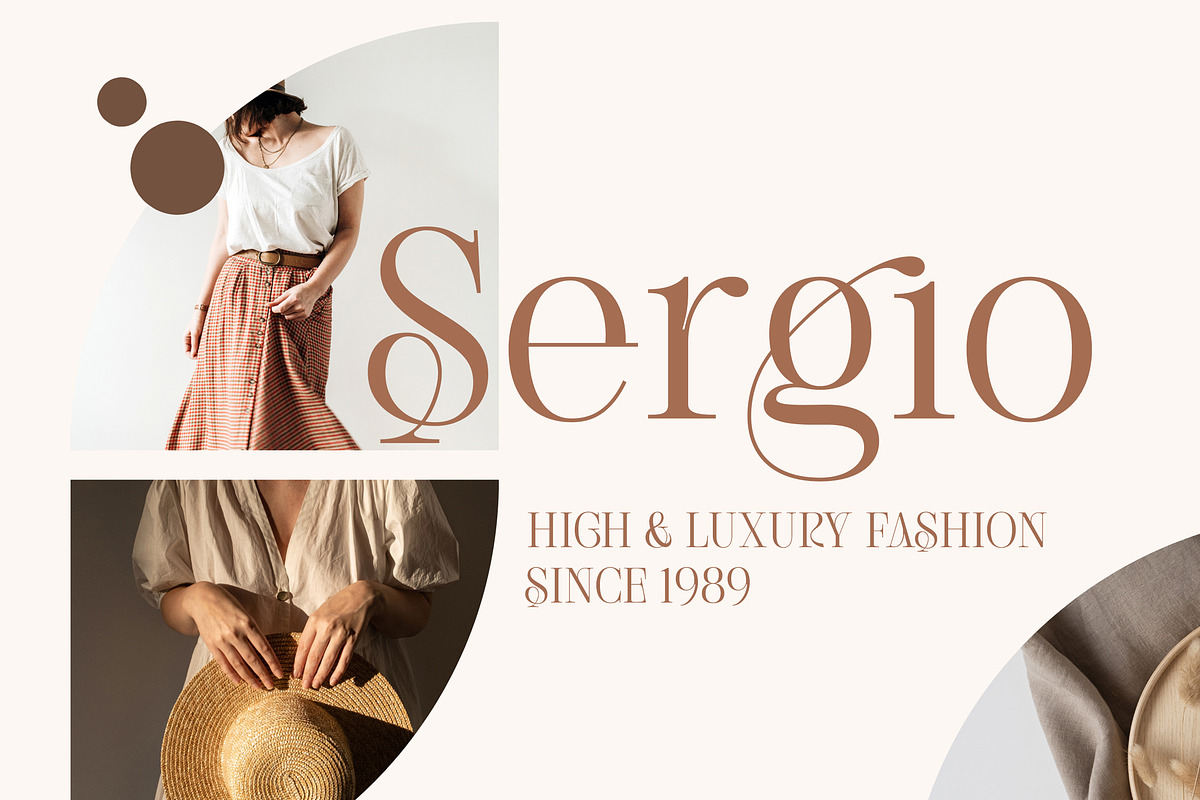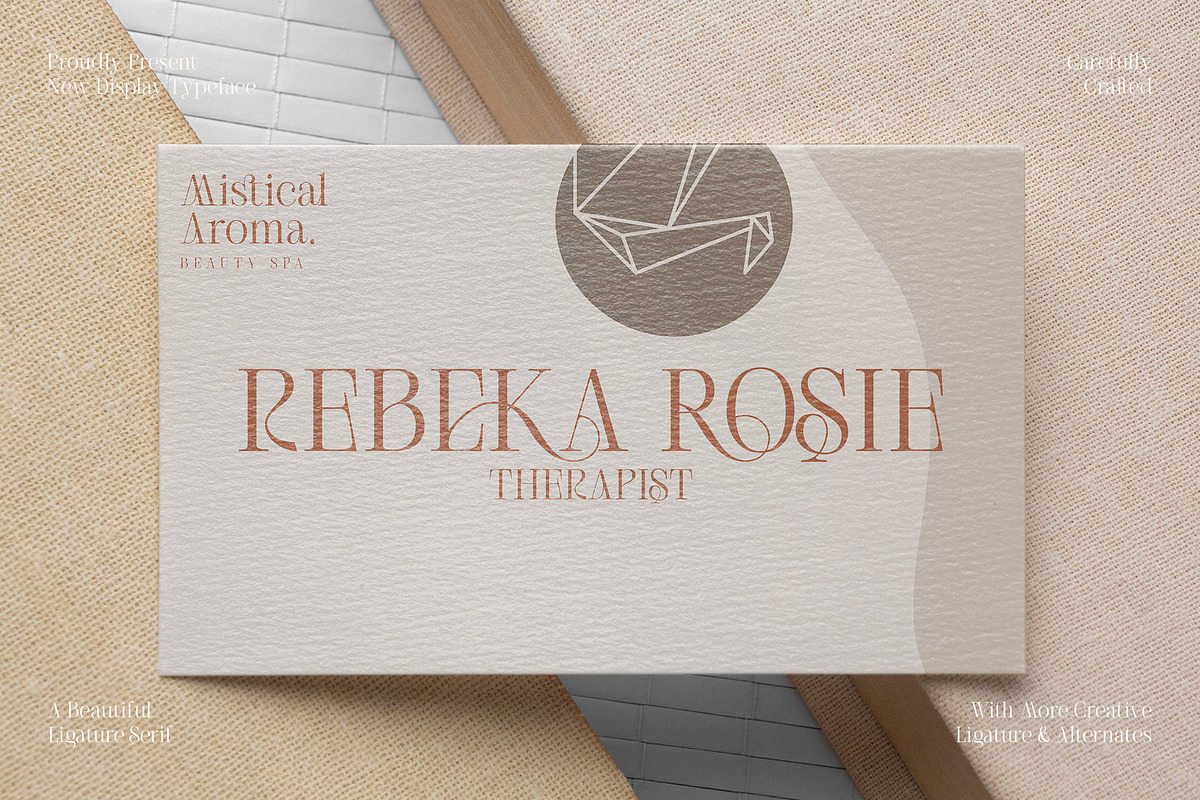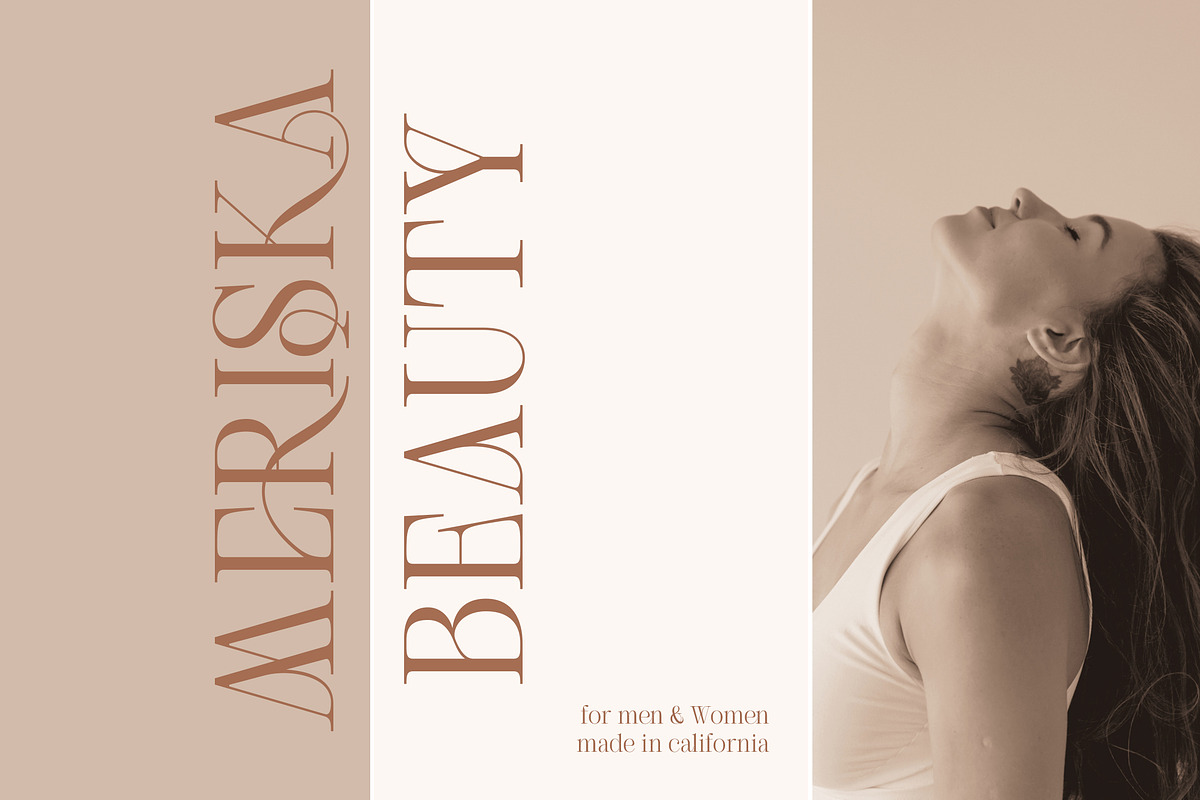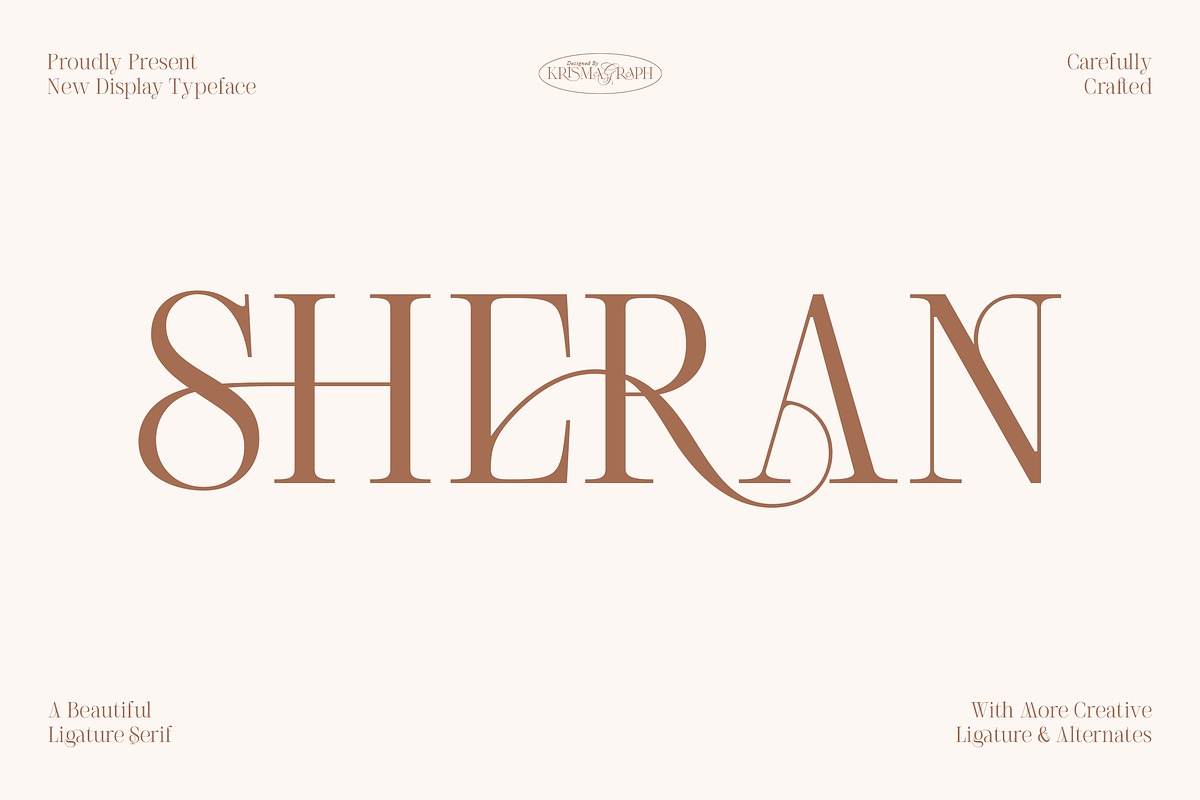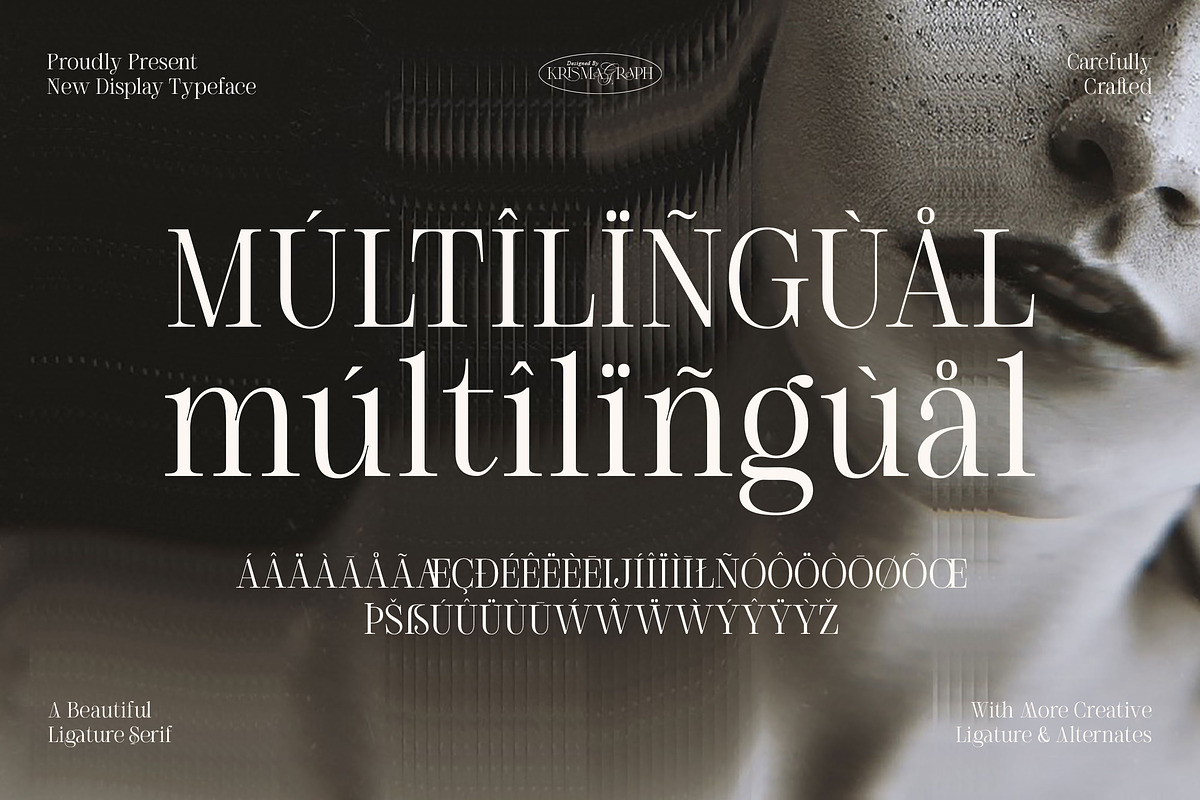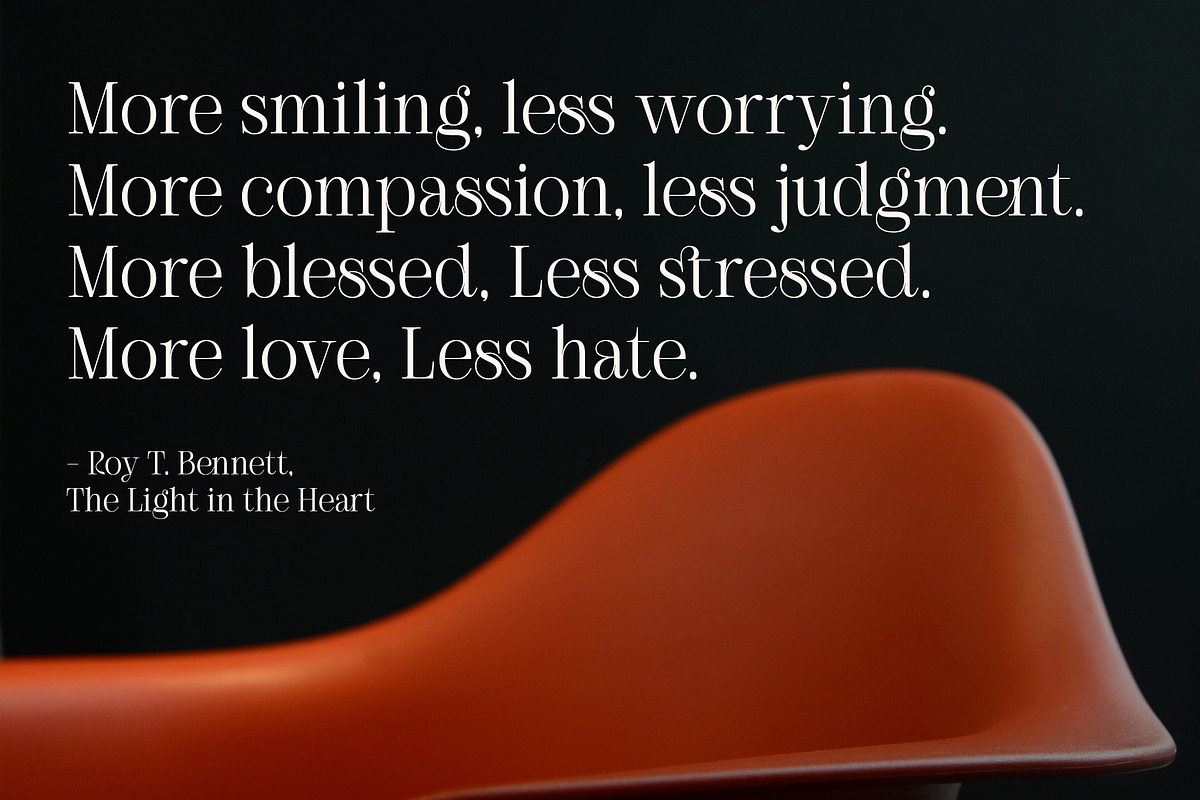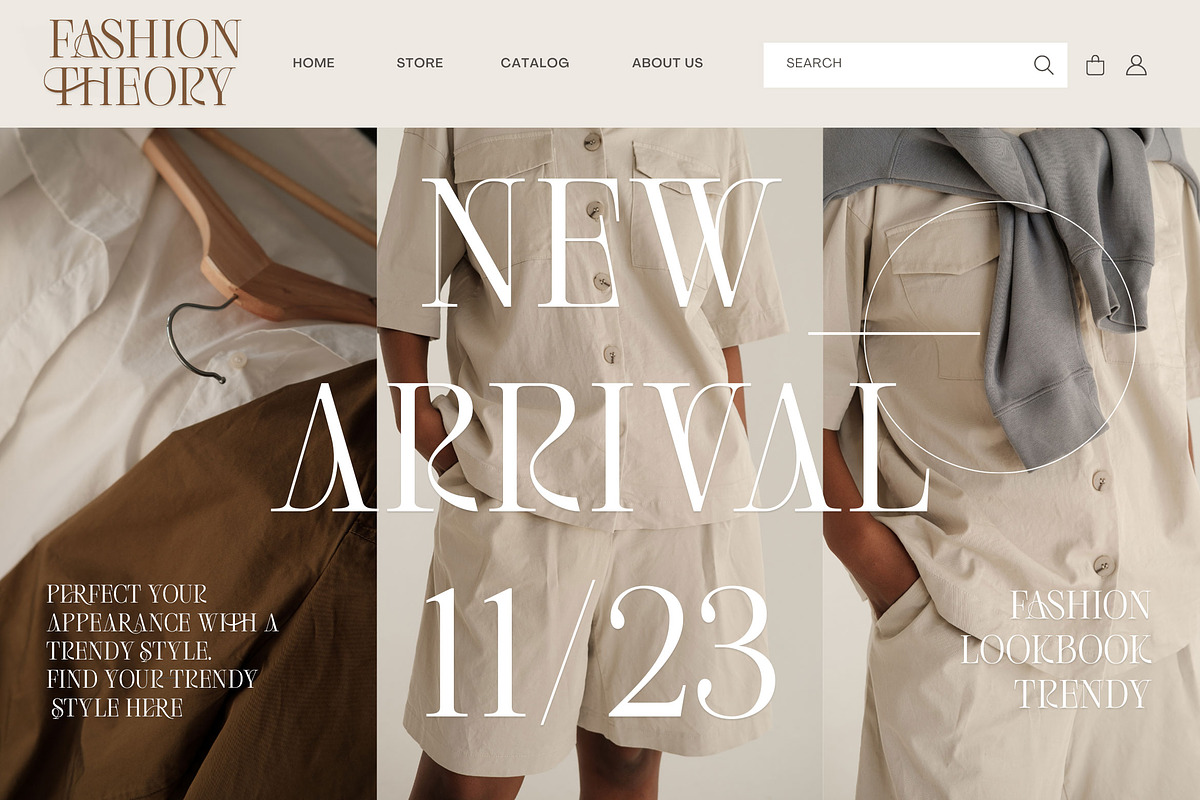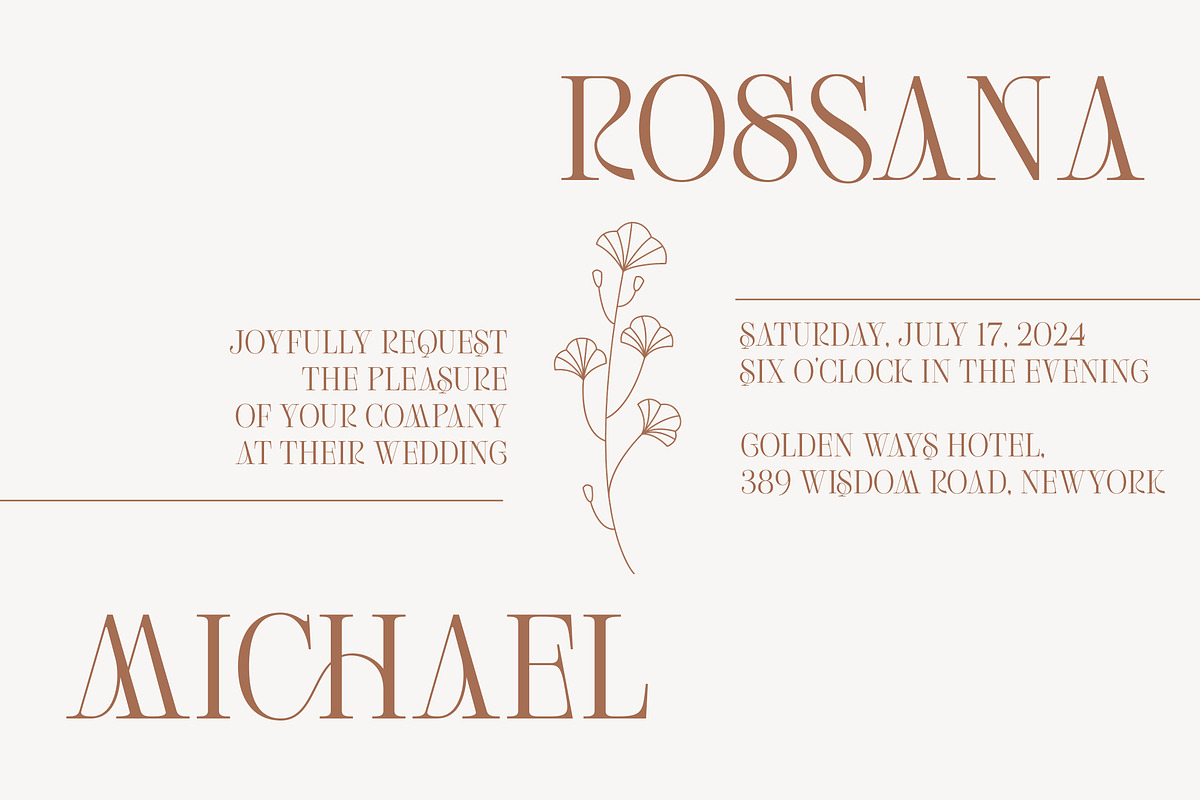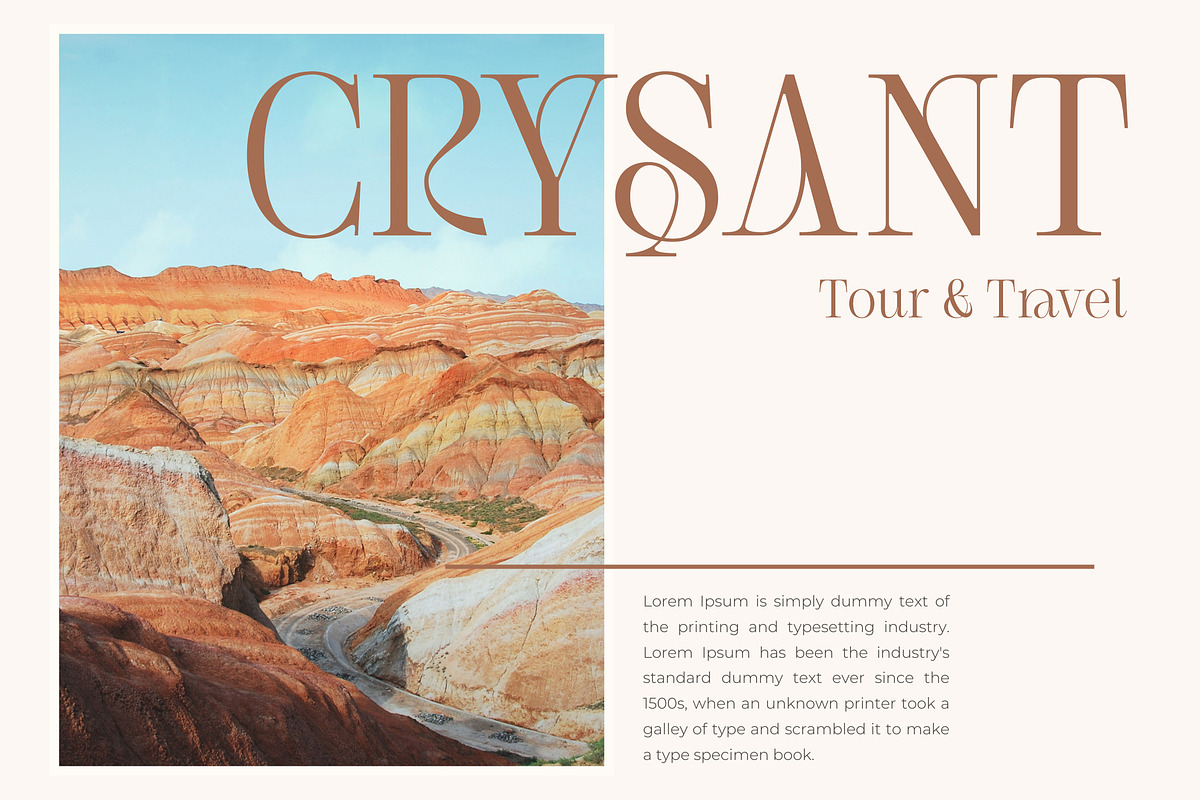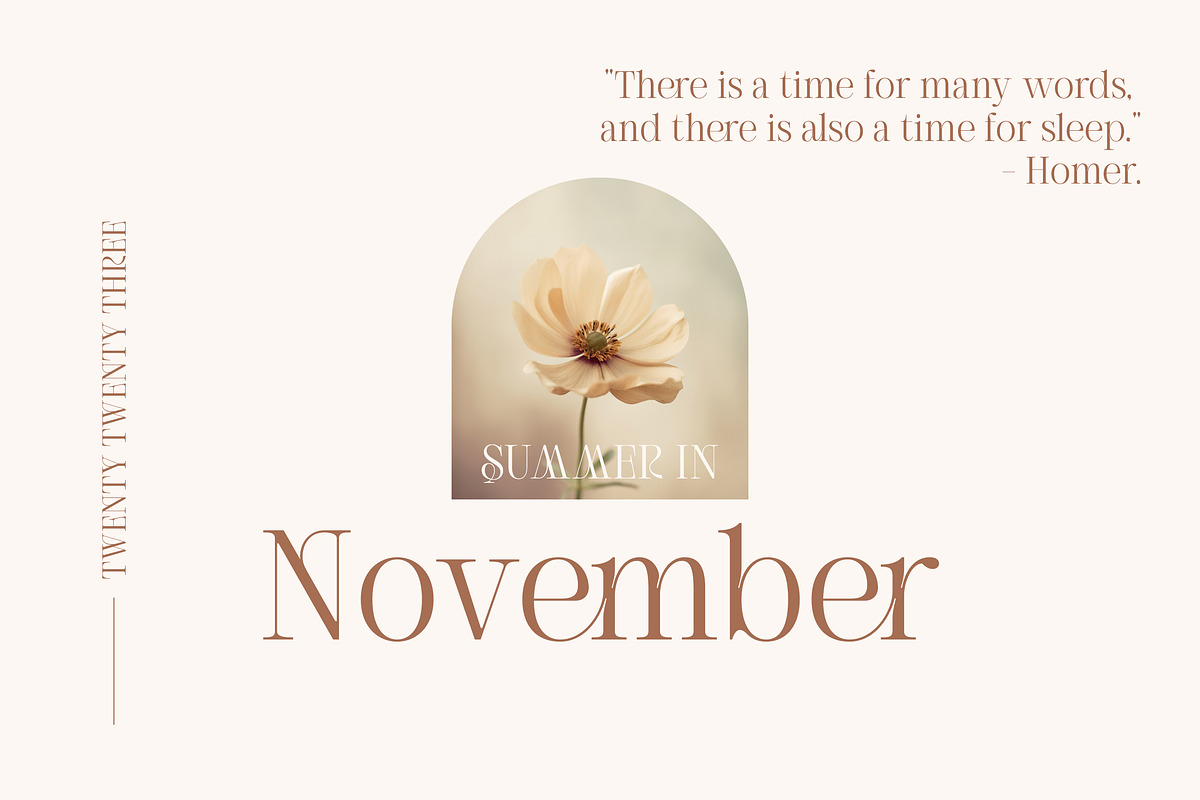
KG Sheran | Beauty Ligature Serif
Introducing new KG Sheran Beautiful Ligature Serif. It is perfect for logos & quotes, posters & branding, website headlines, newsletters & more! It includes over 58 ligatures and some chic alternate letters, the font also includes full language support, punctuation & numerals. so you can combine it to get the look you want!
KG Sheran Beautiful Ligature Serif includes:
- 58 ligatures and alternate letters